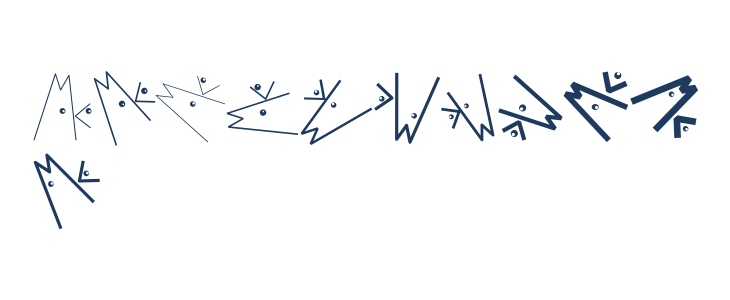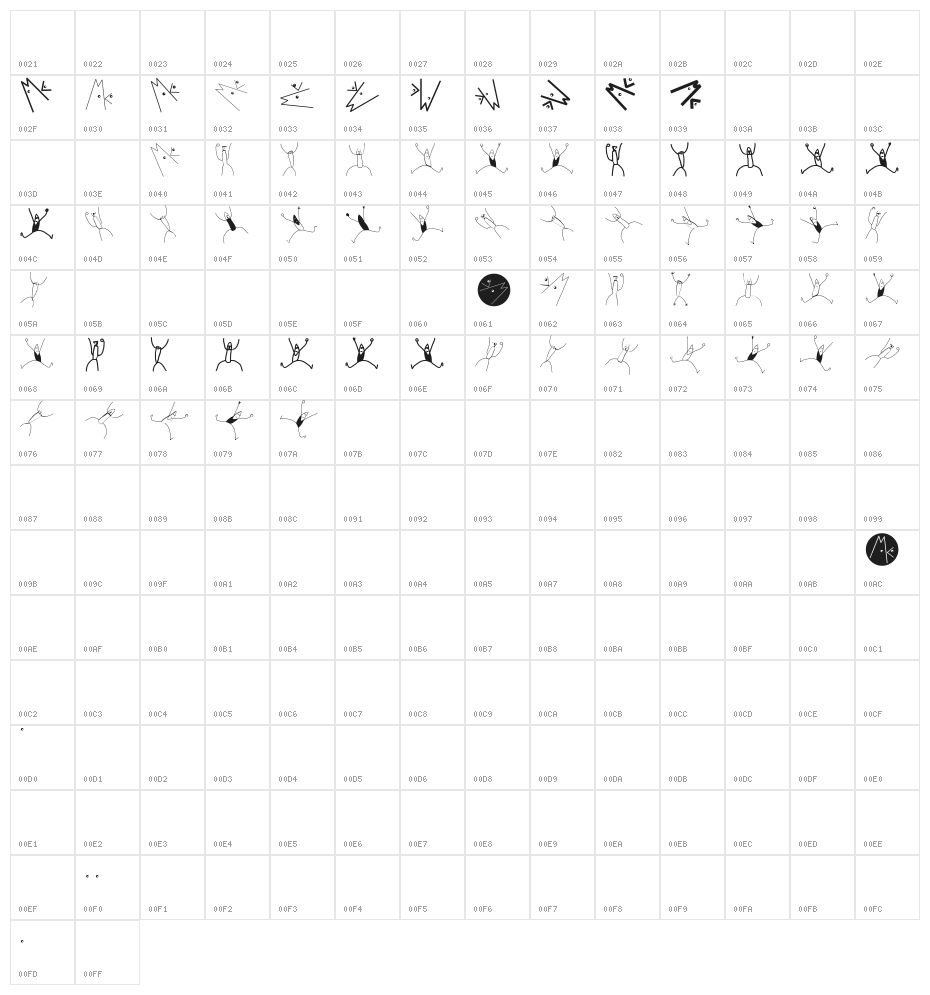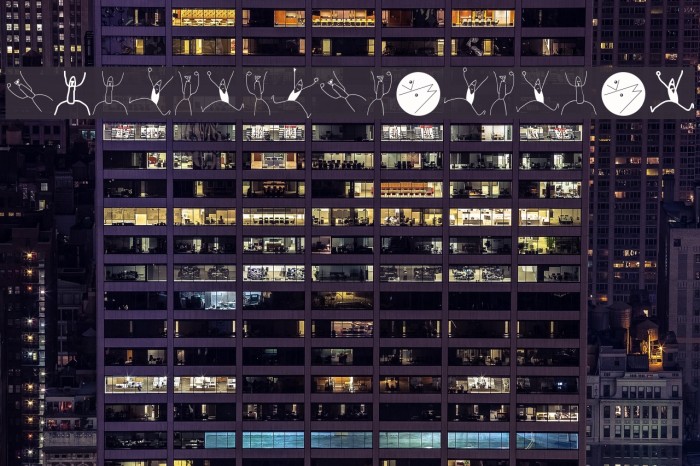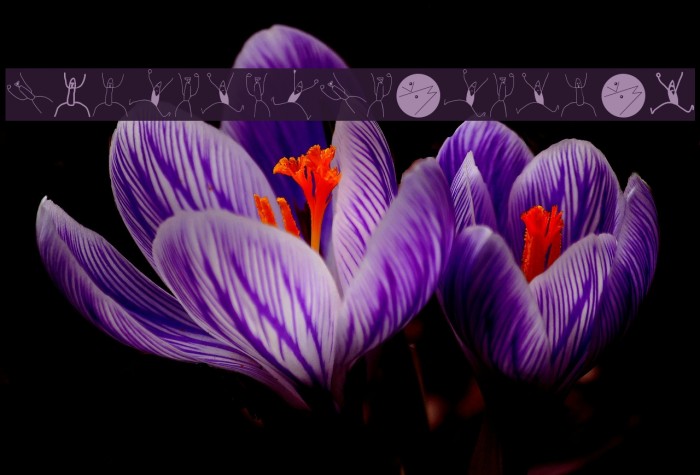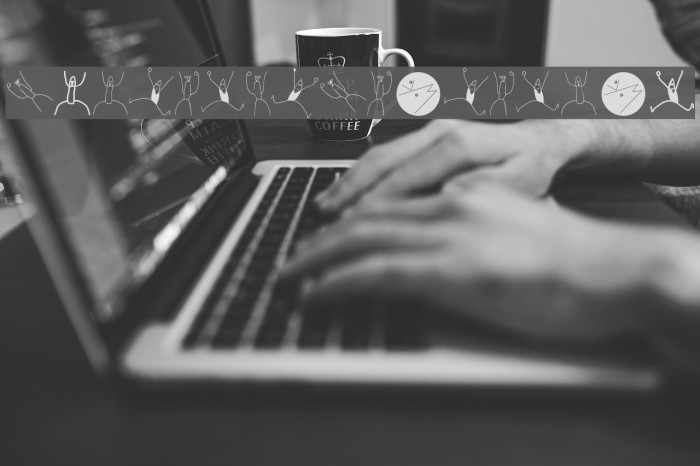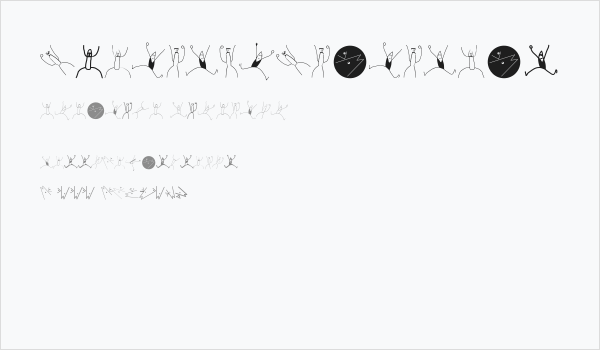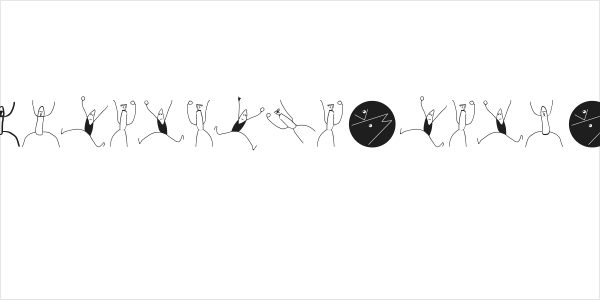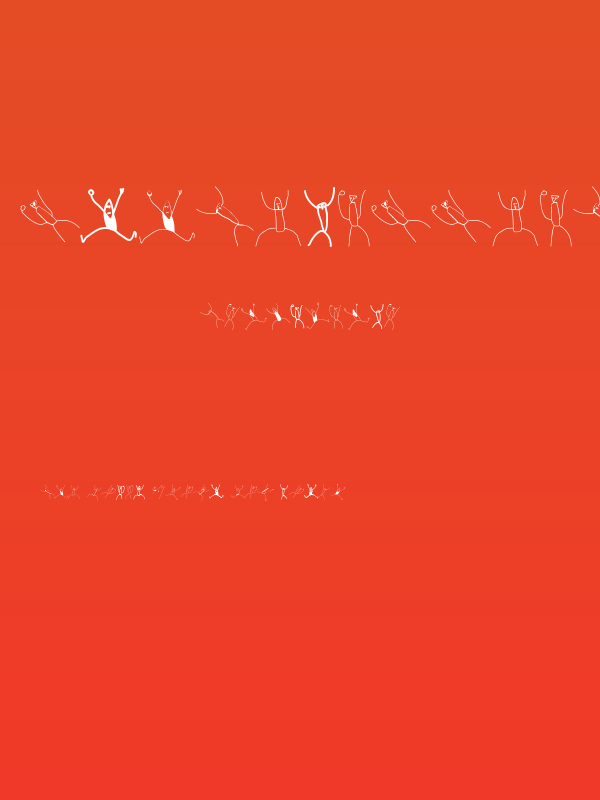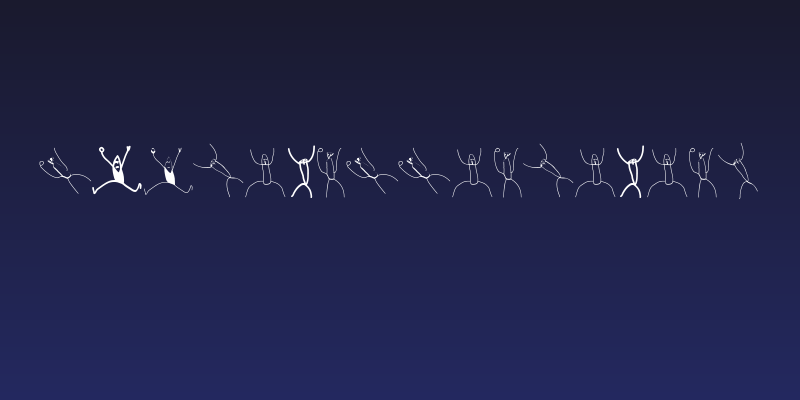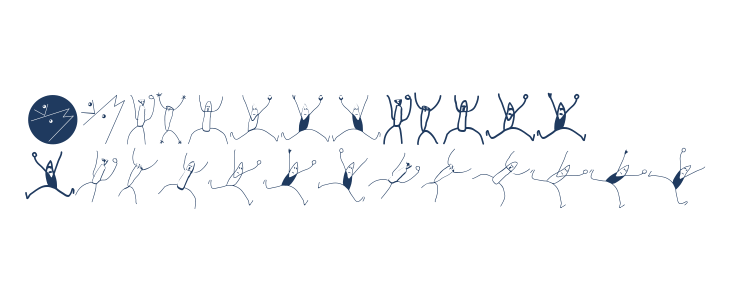
SketchAsScatchCan Font
SketchAsScatchCan Description
This font is a whimsical and artistic representation of characters, where each letter and symbol is creatively depicted as a stick figure in various poses. The design is playful and imaginative, using minimalistic lines and shapes to convey a sense of movement and expression. The characters are not uniform, with varying line thicknesses and angles, adding to the dynamic and lively feel of the font. This unique style captures attention and evokes a sense of fun and creativity, making it suitable for projects that aim to stand out with a distinctive and unconventional look.
| Use Case | Logos, Posters, Artistic projects |
| Proposed Projects | Ideal for children's books, creative posters, playful branding, and artistic projects. |